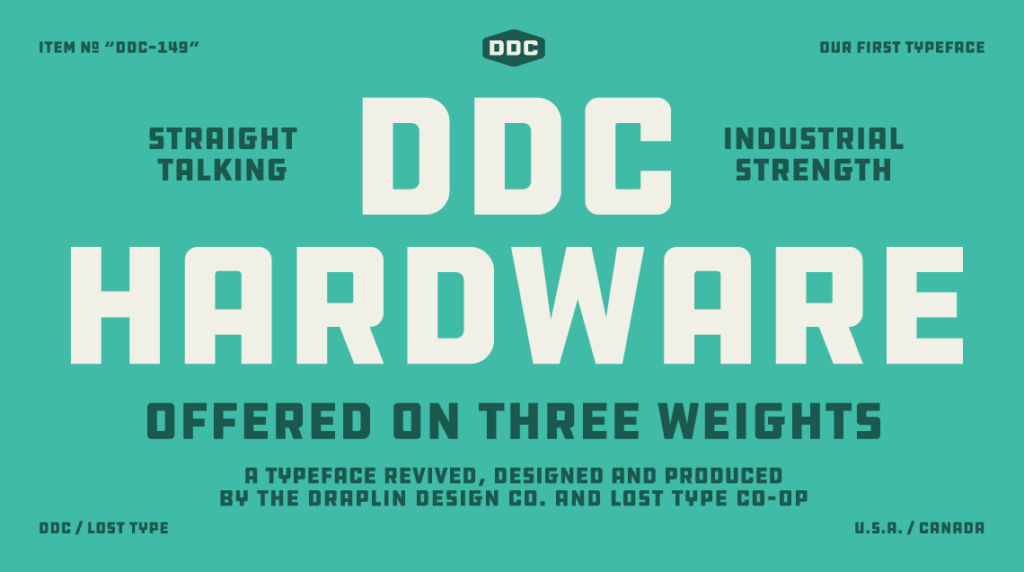
DDC Hardware – A straight-talkin’, industrial-strength typeface in three weights and support for over 100 languages. Plus: it has tons of features including catchwords, split and stacked fractions, ordinals, and historical alternates. DDC Hardware is a product of Draplin Design Co.